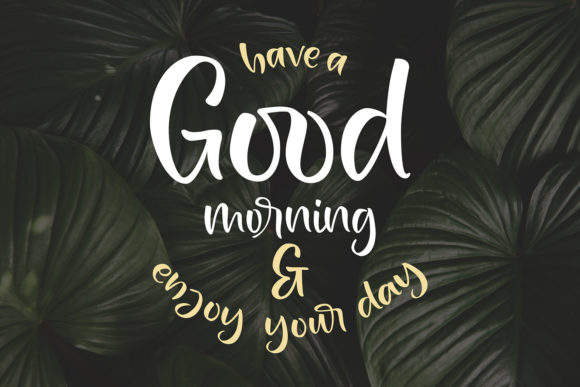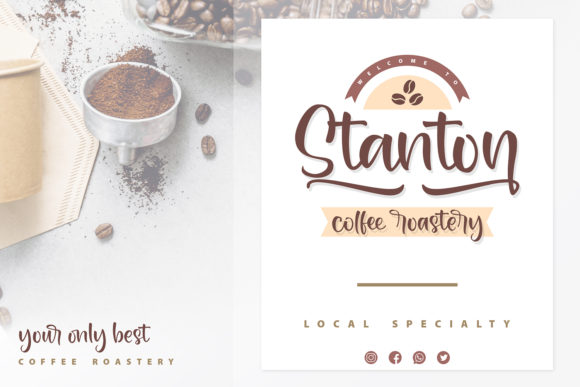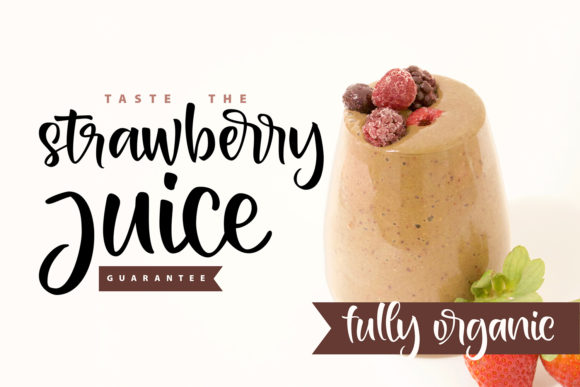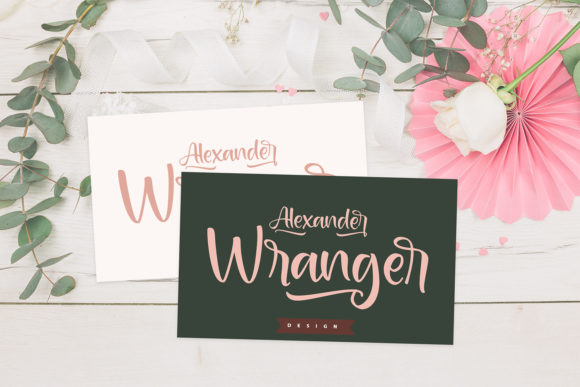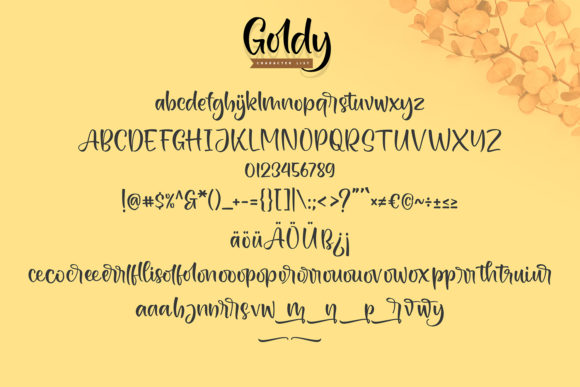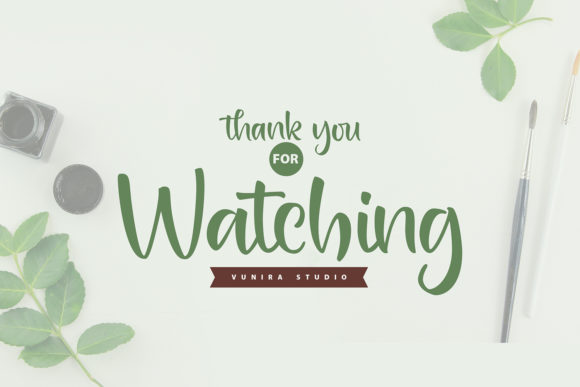
The Quest for the Perfect Font: How Goldy Stole My Heart
I’ll never forget the time I was working on a project for a client who wanted a elegant, yet modern calligraphy font. I spent hours scouring the internet for the perfect one, only to come up empty-handed. That was until I stumbled upon Goldy Font. ✨ It was love at first sight! The flowing lines, the classy vibe, and the contemporary feel all combined to make it the perfect fit for my project.
An Honest Review of Goldy Font
- ✨ PUA encoded for easy access to glyphs and swashes
- ✅ Classy calligraphic influences that feel fresh and modern
- 💫 Beautifully crafted with attention to detail
- 🌈 Versatile and suitable for a wide range of projects
While Goldy Font is an amazing font, there are a few things to keep in mind: ⚠️
- 🤔 Some users may find the font a bit too ornate for certain projects
- ⚠️ Not suitable for very small text sizes due to the intricate details
The Designer Inspiration Behind Goldy Font
While the true story behind Goldy Font’s creation is unknown, it’s easy to imagine that the designer was inspired by the world of calligraphy and elegant typography. Perhaps they spent hours pouring over antique manuscripts and modern typography trends to create a font that would be both timeless and fresh. 💫
Q: What is PUA encoding?
A: PUA (Private Use Area) encoding is a way of encoding fonts that allows for easy access to glyphs and swashes. This means that you can use Goldy Font’s many features without having to use complicated software or plugins. 🤩
Q: Is Goldy Font suitable for body text?
A: While Goldy Font is beautiful, it’s not necessarily the best choice for body text. It’s better suited for headings, titles, and other display text. 📄